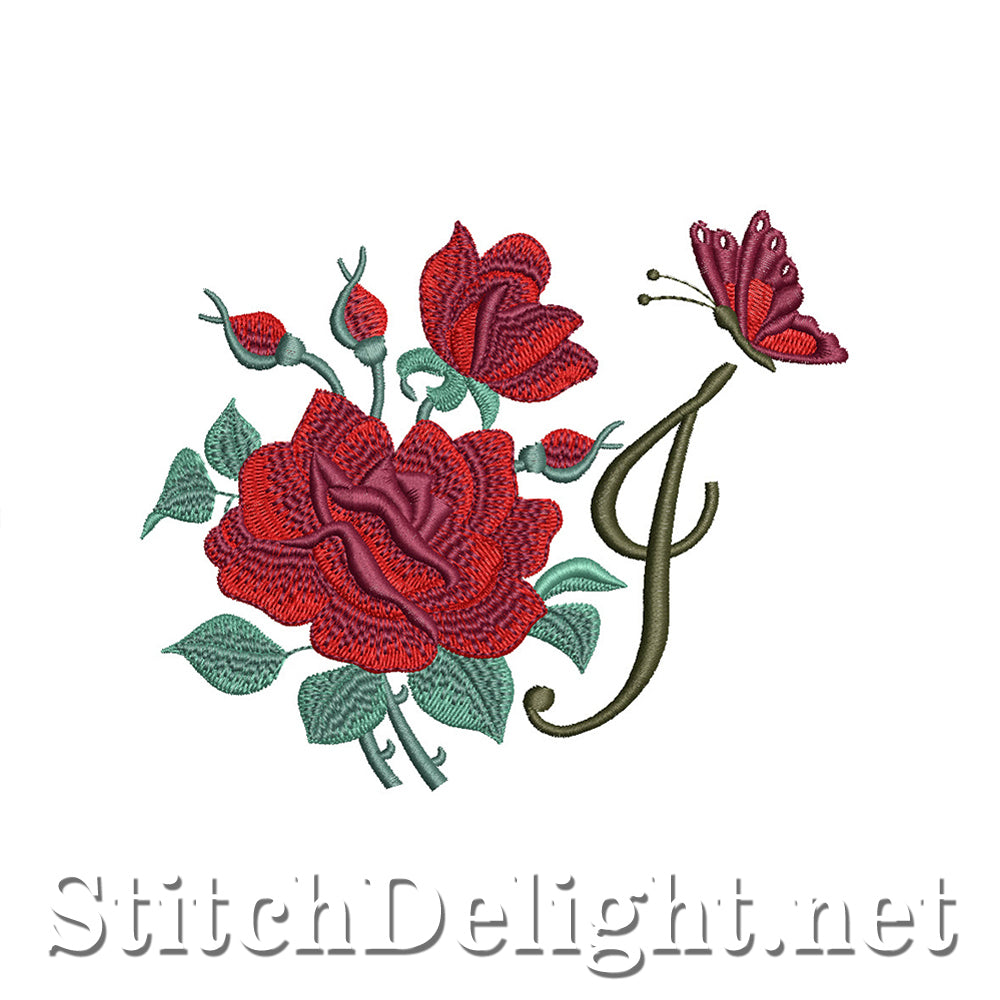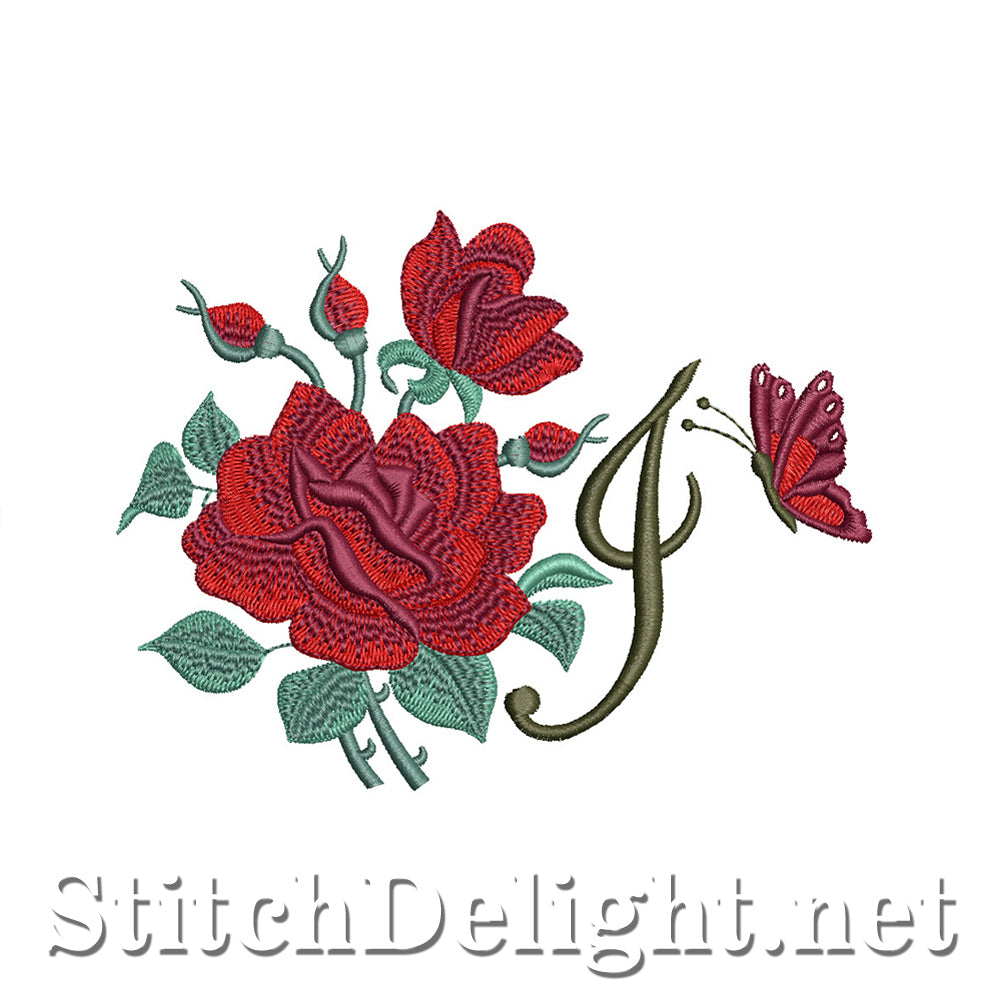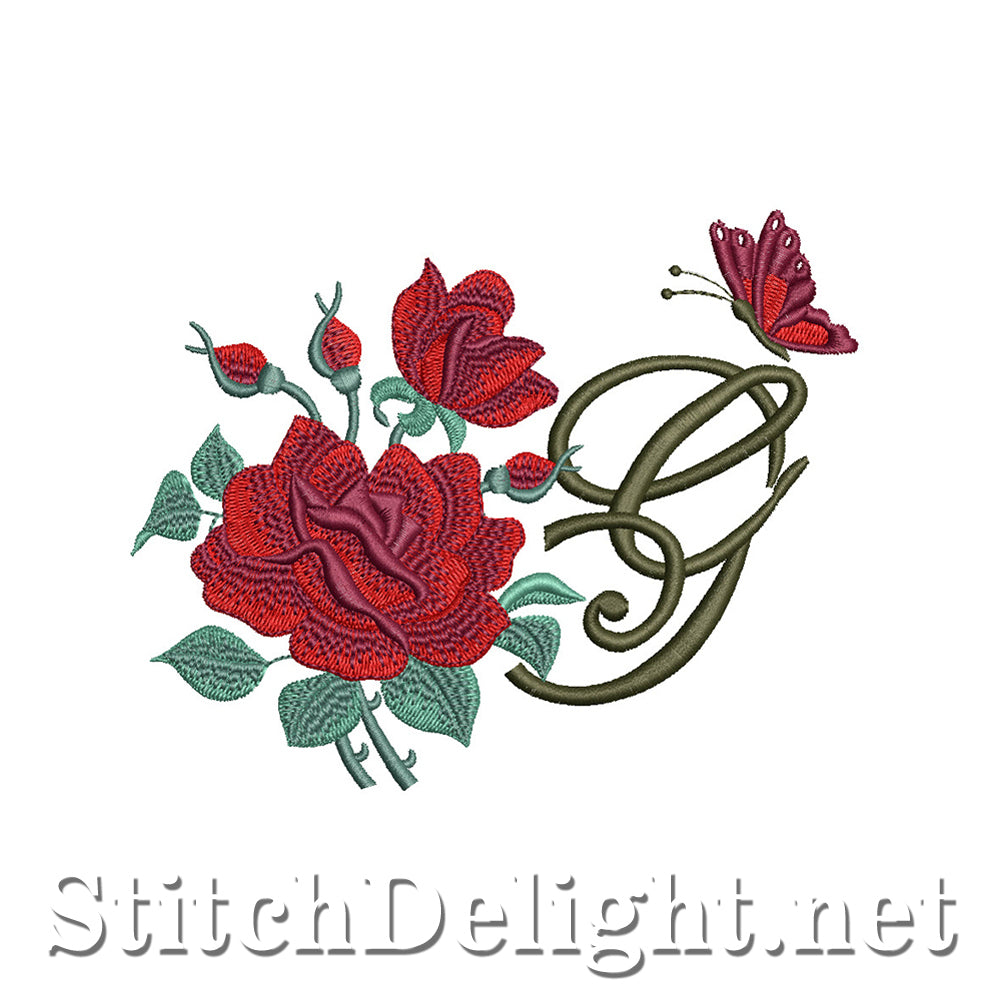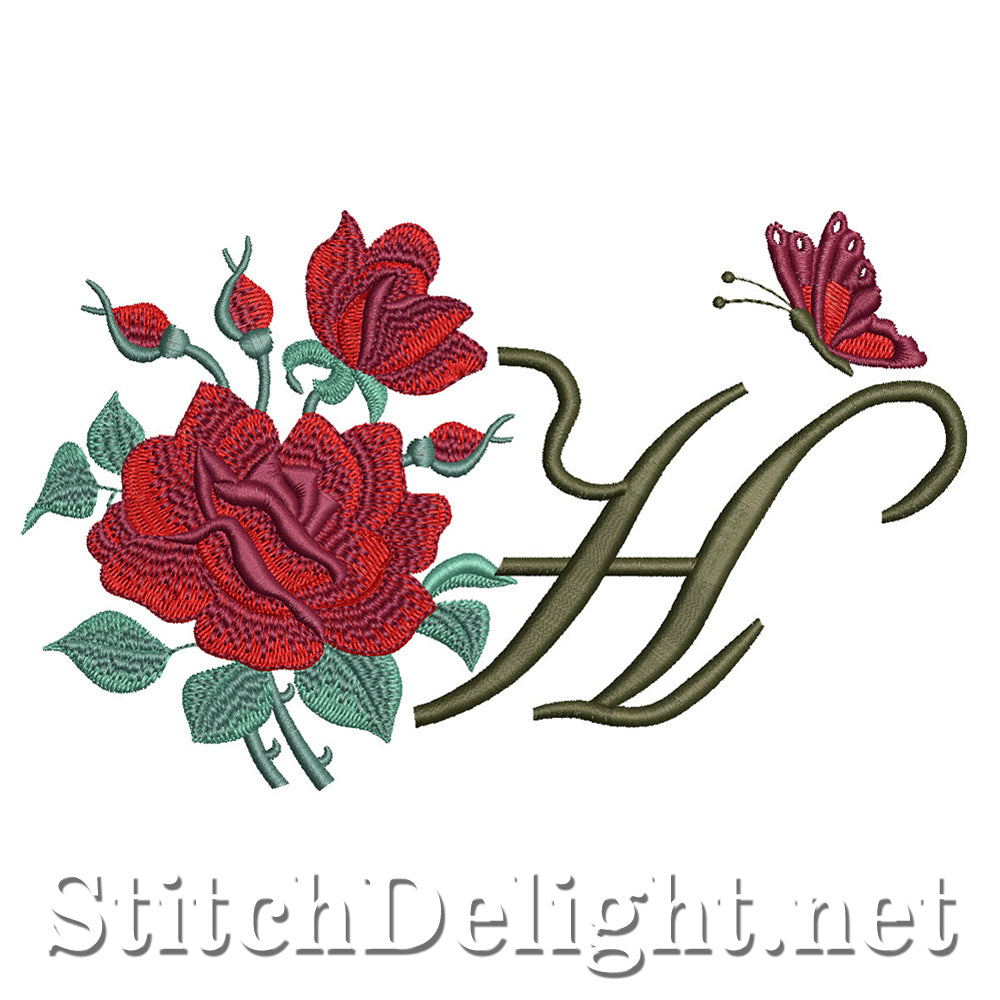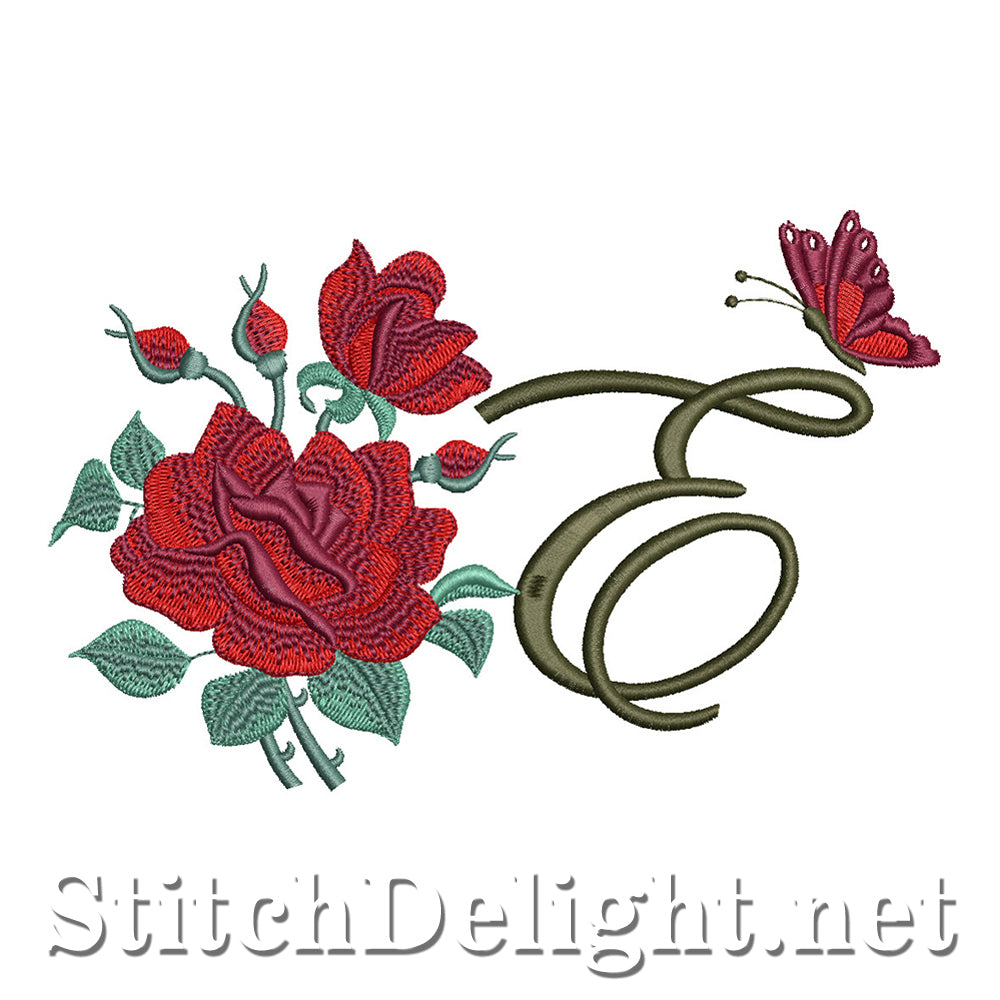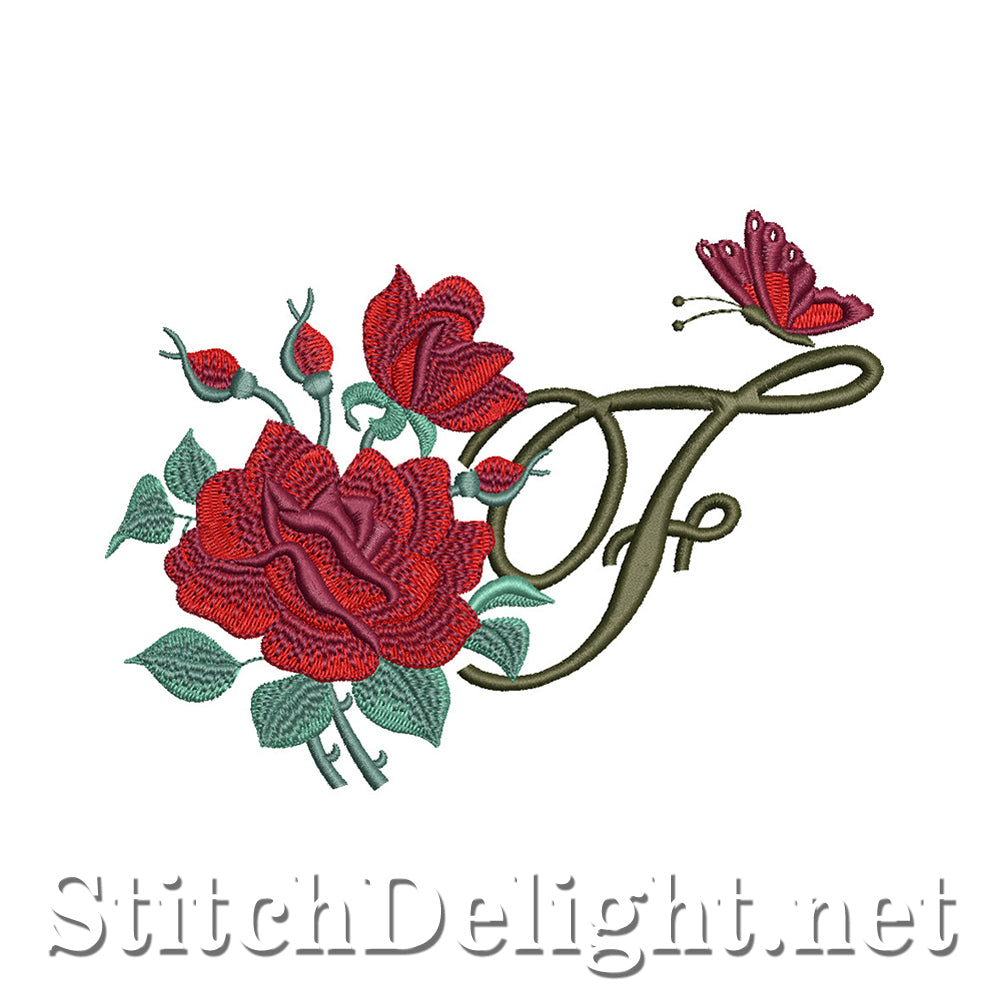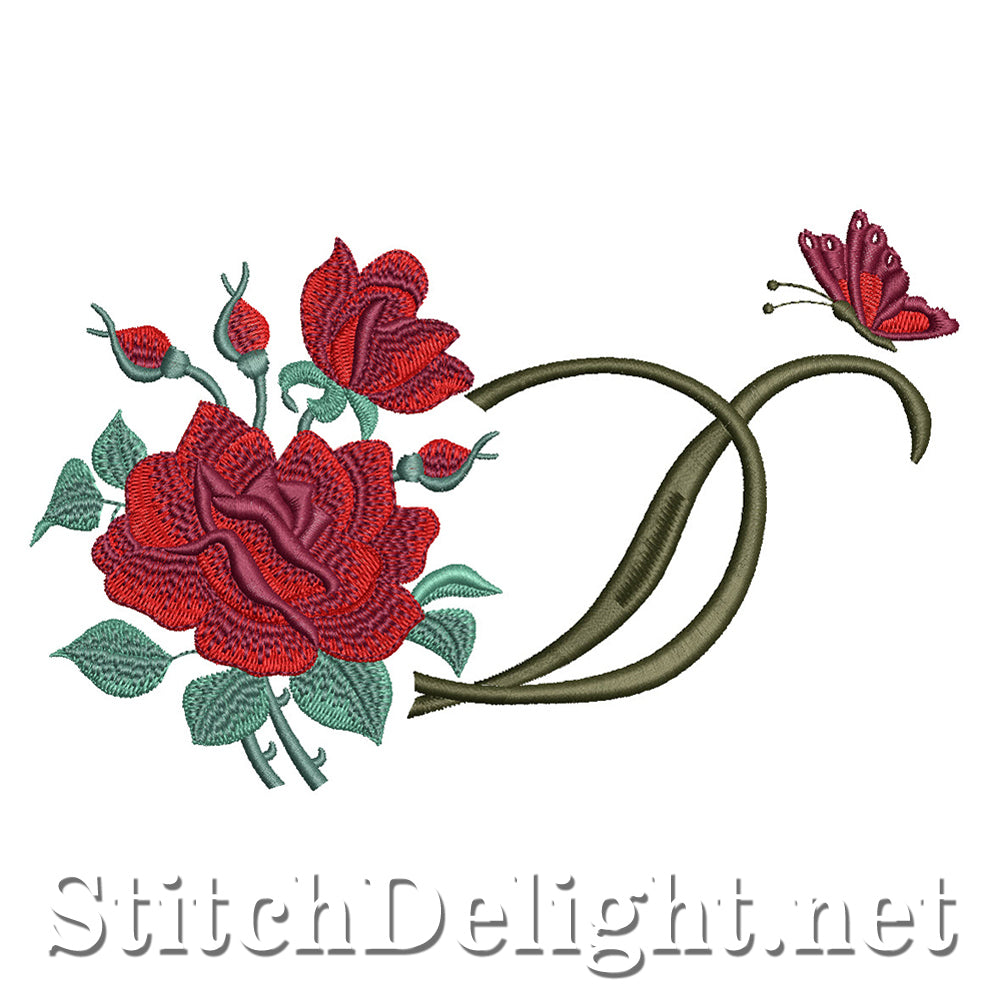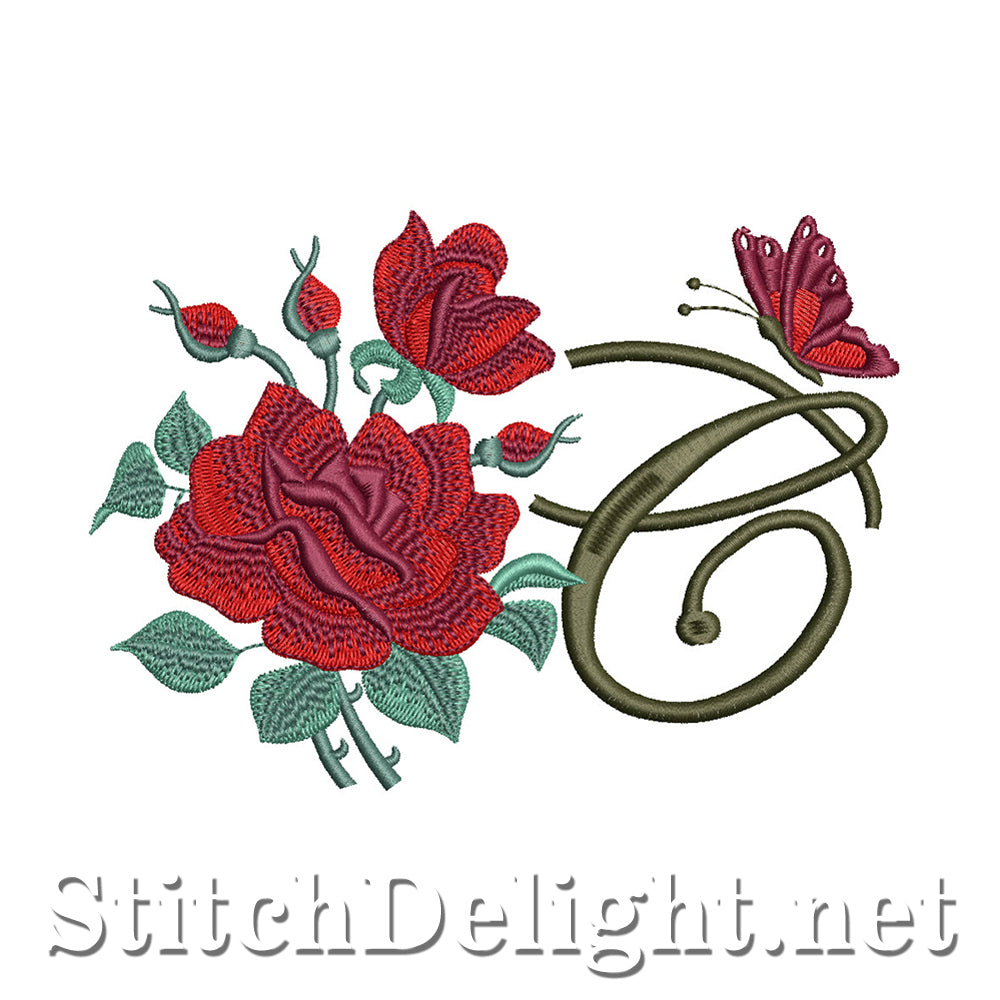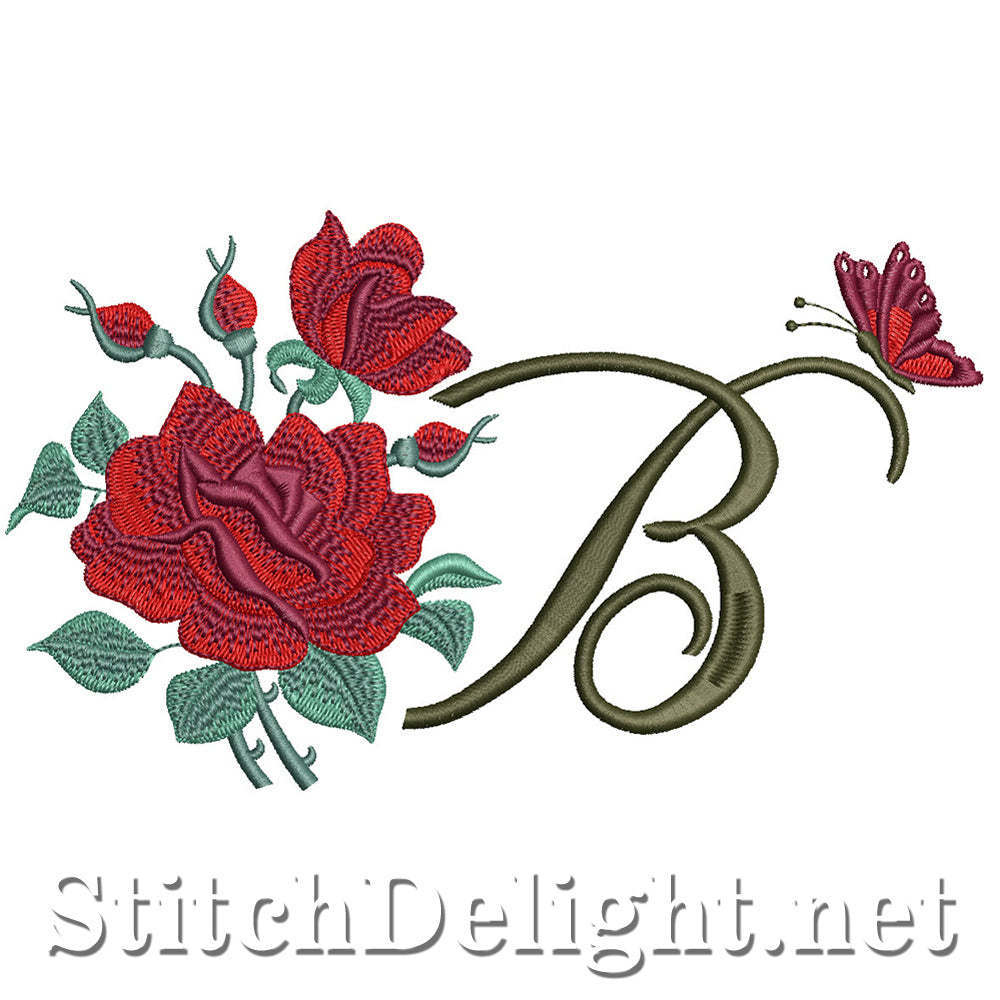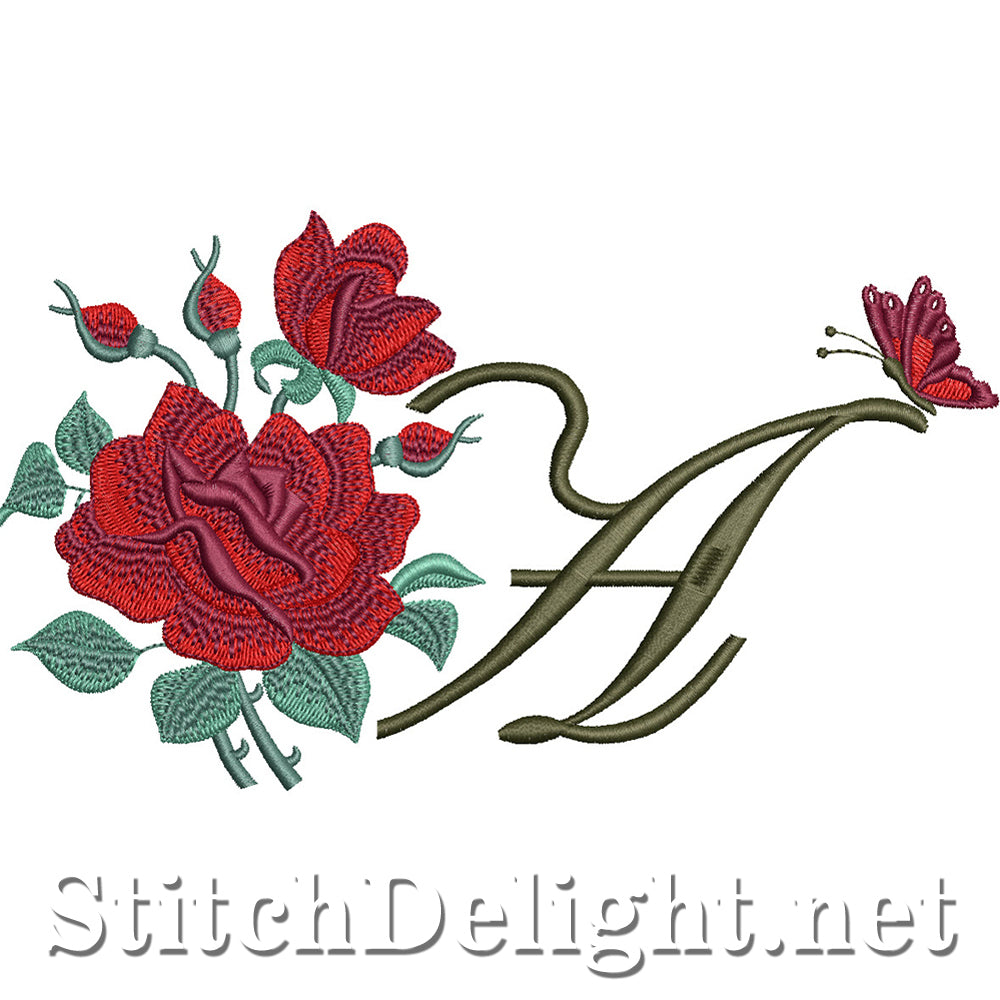
It doesn't get any more romantic then this. Beautiful Rose font is made with love for the 5x7 hoop. Make your own special gifts by stitching his/her name on a blanket/ pillow case.